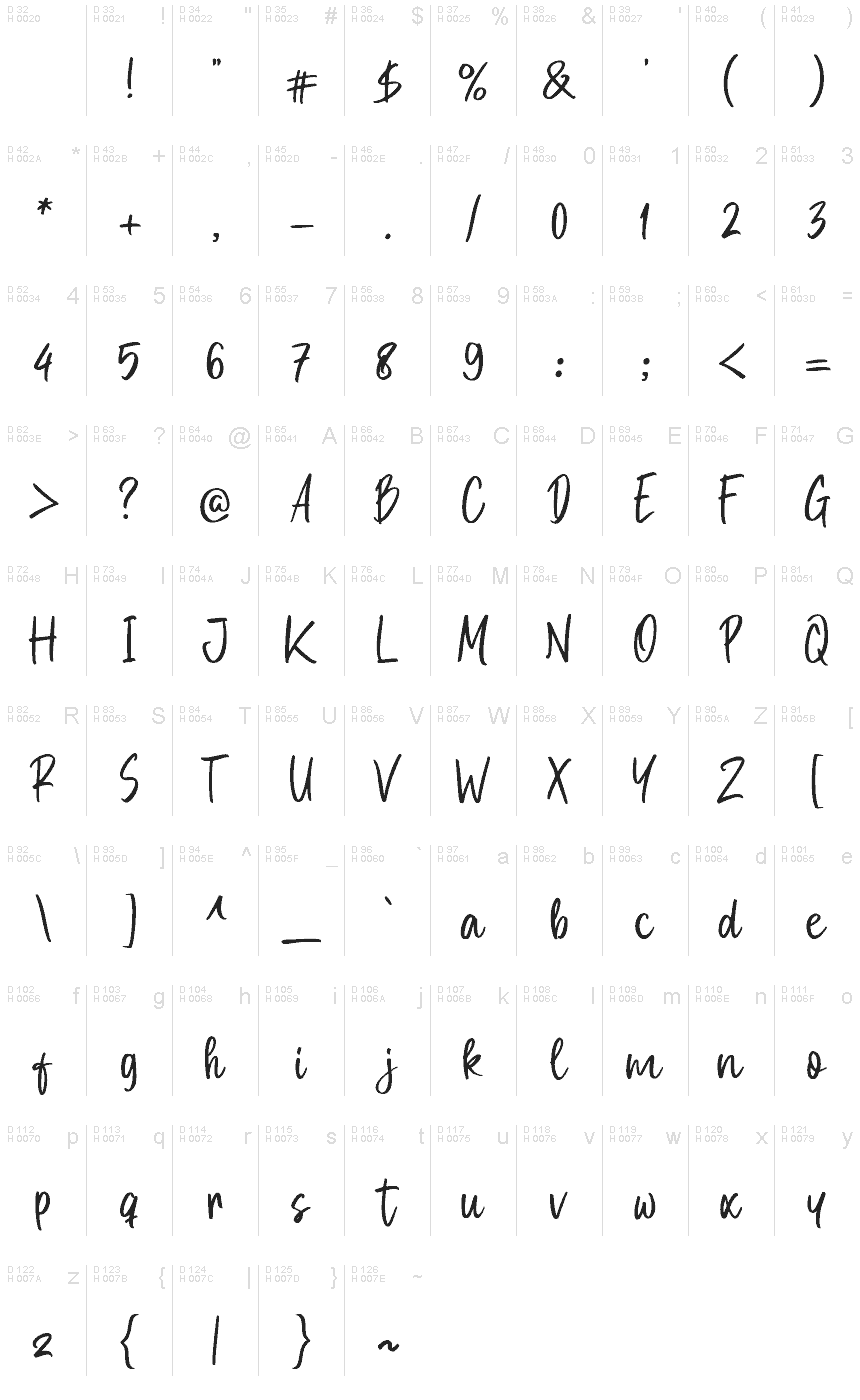
Mayorice
Mayorice font by Khurasan is a free handwritten font with numerous casual, modern, and expressive qualities. The font is gentle and fluid, radiating approachable vibes that will make it a perfect choice for plenty of niche applications. Ideal for expressing artistic elements in your design projects.
Mayorice is excellent for invitations (weddings & other events), stationary art, quotes, business cards, logos and designs (DIY projects), book covers/titles/fonts, posters/covers/logo/branding spots.